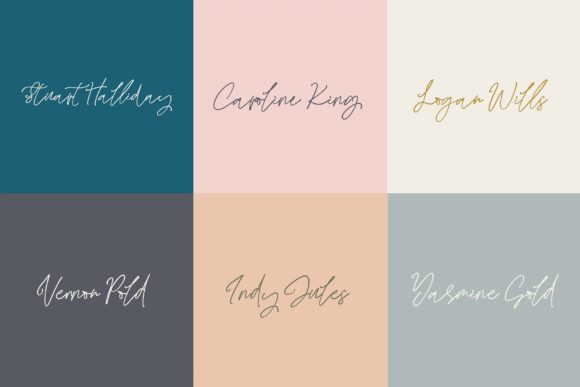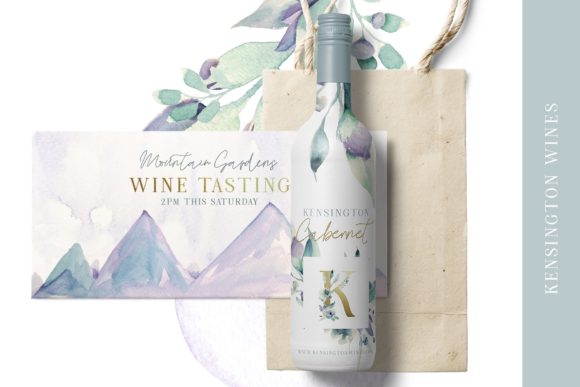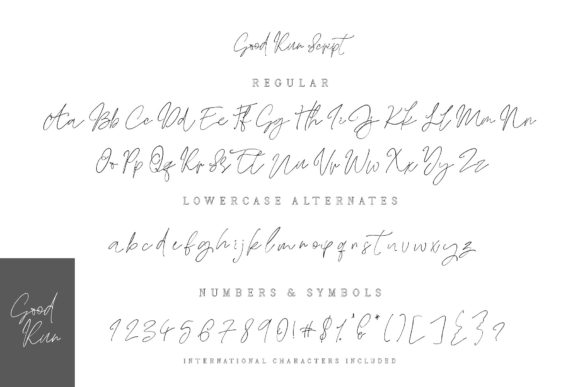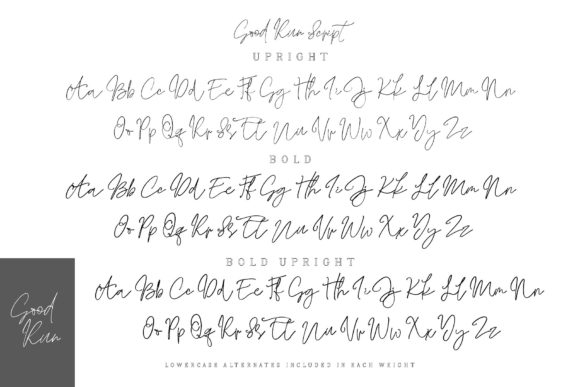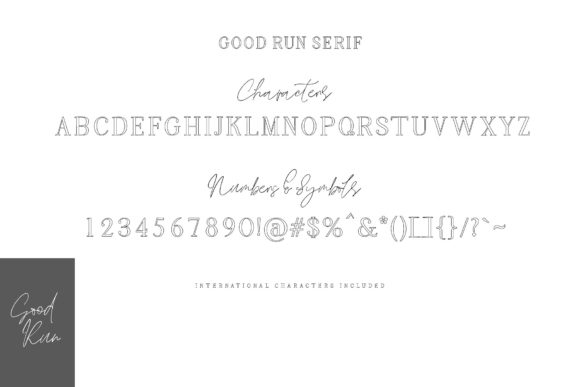
Introduction to Good Run Duo Font
Have you ever stumbled upon a perfect combination of fonts that makes your creative project shine? For designers, finding that elusive pairing can be a game-changer. It’s the moment when everything falls into place, and your design comes alive. This is exactly what the Good Run Duo Font offers – a harmonious blend of a fun, easy-to-read handwritten script and a clean outline serif.
This dynamic duo is perfect for a wide range of creative endeavors, from quotes and wedding invitations to posters, signs, and branding logos. With its high-quality design and transparent background, the Good Run Duo Font is a valuable resource for designers seeking to elevate their projects. And the best part? It’s available for free download, making it an accessible design resource for creatives of all levels.
Key Features of Good Run Duo Font
- Designed with a modern and sleek aesthetic, perfect for branding and visual identity
- Includes a wide range of characters, including uppercase and lowercase letters, numbers, and punctuation
Honest Review: Good Run Duo Font
I recently had the chance to work with the Good Run Duo Font, and I’m excited to share my thoughts on this design resource. As a designer, I’m always on the lookout for high-quality fonts that can elevate my creative projects.
- ✨ High-quality design: The Good Run Duo Font has a clean, modern aesthetic that’s perfect for a variety of design applications.
- ✨ Transparent background: This font includes a transparent background option, which makes it easy to customize and integrate into different design projects.
- ⚠️ Limited character set: While the font is well-designed, it’s limited to a basic character set, which may not be suitable for more complex design projects.
- ⚠️ Not suitable for small text: The font’s design may not be ideal for small text sizes, where the letters may become distorted or difficult to read.
Overall, I’m impressed with the Good Run Duo Font. While it may have some limitations, it’s a solid addition to any designer’s toolkit. With its high-quality design, transparent background, and free download option, it’s a great resource for designers working on creative projects.
Tips for Getting the Most Out of Good Run Duo Font
Experiment with the font’s various styles and combinations to create visually appealing designs. Additionally, pair the font with other high-quality design resources for optimal results.
Common Use Cases for Good Run Duo Font
The Good Run Duo Font is suitable for a range of creative projects, including graphic design, digital art, and print materials. Its versatility makes it an excellent choice for designers seeking a high-quality, free font resource.